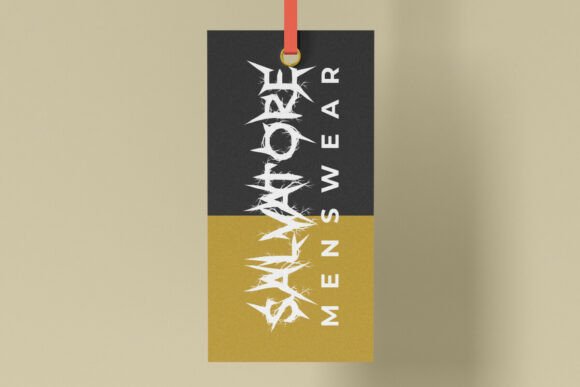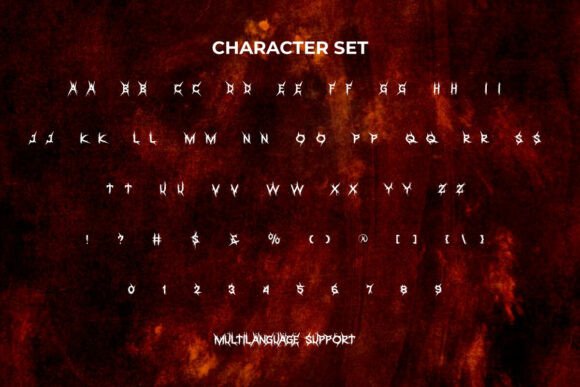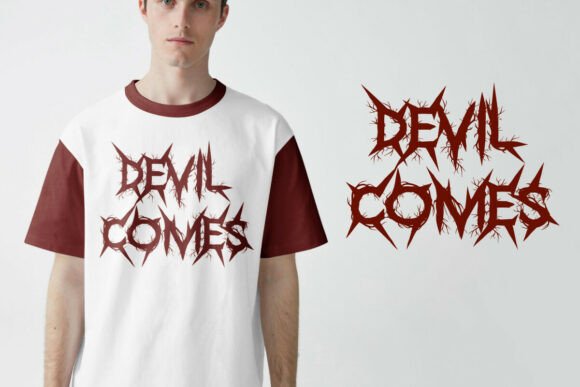
Introduction to Devil Comes Font Font
Fonts play a crucial role in design, and the Devil Comes Font font is a typeface that brings both character and versatility to any project. Whether you’re working on a branding project, a website, or a print design, the Devil Comes Font font offers a unique style that can elevate your work.
| 📌 Font Name | Devil Comes Font |
| 👤 Author | NoahType |
Devil Comes Font is a horror black metal decorative font created by NoahType.
Unleash the raw power of the underground with Devil Comes font, a quintessential black metal typeface designed for extreme intensity This Devil Comes typeface features chaotic, thorn-like extensions and jagged, aggressive strokes that perfectly capture the dark aesthetic of the heavy metal subculture.
Key Features of Devil Comes Font Font
Why Choose Devil Comes Font Font?
The Devil Comes Font font is more than just a typeface – it’s a design tool that helps you communicate your message with style and clarity. Its unique character set and versatile design make it suitable for a wide range of applications, from elegant invitations to bold headlines.
With its carefully crafted letterforms and balanced proportions, the Devil Comes Font font ensures readability and visual appeal across all mediums.
What makes Devil Comes Font font special?
The Devil Comes Font font stands out with its unique design, exceptional readability, and versatility across various design applications.